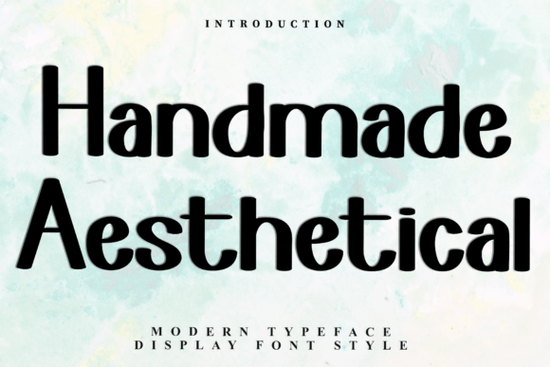
Handmade Aesthetical Font is a unique typeface that brings a festive and joyful vibe to any design project. Whether you're creating holiday cards, gift tags, or other seasonal graphics, this font adds a charming and whimsical touch. Its decorative elements make it stand out, giving your work a personal and artistic feel. The font is PUA encoded, which means you can easily access all the special glyphs and ligatures without any extra steps.
If you're looking for a font that combines creativity with functionality, Handmade Aesthetical could be just what you need. It's ideal for designers, crafters, and small businesses who want to add a handmade aesthetic to their work. The font’s nostalgic and cheerful style makes it perfect for holiday-themed projects, but it can also be used in more general creative contexts.
For those who enjoy experimenting with different typography styles, this font offers a lot of flexibility. It works well with other fonts, making it easy to create visually appealing layouts. You can pair it with more modern or minimalist typefaces to balance the design. The font’s versatility ensures it can fit into a wide range of projects, from print to digital media.
What Makes Handmade Aesthetical Font Stand Out?
One of the key features of Handmade Aesthetical Font is its decorative and whimsical style. Unlike many standard fonts, this one has a handcrafted look that feels more personal and authentic. The letterforms include subtle flourishes and embellishments that give the text a unique character. This makes it especially useful for projects that require a warm, inviting tone.
The font also includes a variety of ligatures and alternate glyphs, which allow for more creative expression. These features are accessible thanks to the PUA encoding, so you don’t have to worry about compatibility issues. Whether you're working on a simple logo or a complex layout, you'll find that this font offers a lot of customization options.
Best Uses for Handmade Aesthetical Font
This font is particularly well-suited for holiday and seasonal designs. It can be used to create greeting cards, banners, and social media posts that capture the spirit of the season. Its festive look makes it a great choice for Christmas, Thanksgiving, or other special occasions. However, it’s not limited to just holidays its charm can also be used in more general creative projects.
For print-on-demand sellers, Handmade Aesthetical Font can help create eye-catching products that stand out. It’s perfect for T-shirts, mugs, and other merchandise that require a custom and artistic touch. Small businesses can also benefit from using this font in their branding materials, such as business cards, flyers, and website headers.
How to Use Handmade Aesthetical Font Effectively
To get the most out of Handmade Aesthetical Font, consider the context in which you’re using it. Since it has a decorative style, it’s best used in smaller text sizes where the details can be appreciated. Avoid using it for large blocks of text, as it may become difficult to read. Instead, use it for headings, titles, and short phrases that need a visual boost.
For a more stacked and structured look, you might try Humble Stacked Font. If you're looking for something more playful and child-like, ABCD School Font could be a good match. And if you want a more rugged and weathered style, Weathred Font might be worth checking out.
Whether you're a designer, crafter, or small business owner, this font can add a special touch to your work. Its festive and artistic style makes it a valuable addition to any font collection. By using it thoughtfully, you can enhance the visual appeal of your designs while maintaining readability and clarity.
If you're looking for a font that brings a handmade feel to your projects, consider trying Handmade Aesthetical Font. It’s a versatile and expressive option that can elevate your work in a unique way.
- Use it in smaller text sizes for best results.
- Pair it with complementary fonts for balanced designs.